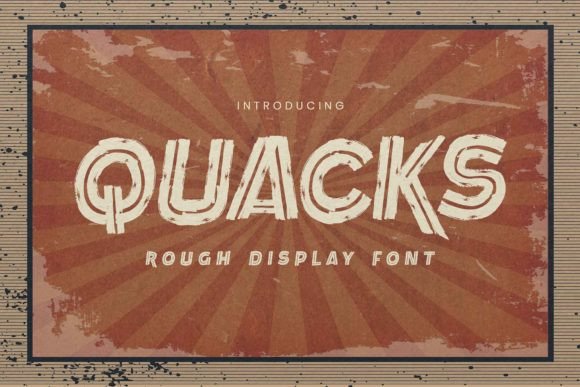
Quacks: A Display Font That Feels Like a Thoughtful Pause
Last Tuesday, I sat down to refresh the cover of a small digital magazine feature on slow living—no tight deadlines, no brand guidelines to follow, just quiet intention. I opened my font library and scrolled past dozens of bold serifs and airy sans serifs, then paused at Quacks. Not because it shouted loudest, but because it seemed to breathe with the same gentle rhythm the article itself was built around: unhurried, expressive, quietly confident.
Quacks is a display font—not meant for paragraphs or captions, but for moments that ask to be felt before they’re read. Its letterforms carry a subtle calligraphic warmth, with soft terminals, generous x-height, and just enough personality to feel handmade without slipping into whimsy. There’s no forced quirkiness here; instead, Quacks balances structure and spontaneity. The uppercase Q has a delicate upward flick, the lowercase a leans in like a friendly nod, and the spacing between letters invites air—not clutter. It doesn’t demand attention; it earns it.
I used Quacks for the feature’s title treatment across three formats: a PDF newsletter header, a printable guide page for readers, and the opening spread of a digital magazine layout. In each case, it anchored the composition without overwhelming it. On screen, its clean outlines rendered crisply even at smaller sizes (I tested 24–36pt for headers), and in print, the ink held its shape beautifully—no feathering, no loss of nuance. For a lifestyle blog redesign I’m helping a friend prototype, we applied Quacks to the main header and chapter openers, then paired it with a warm, readable serif for body text. The contrast worked effortlessly: Quacks set the tone; the serif carried the conversation.
What makes Quacks especially thoughtful for editorial work is how it supports hierarchy without shouting. It’s ideal for titles, section headers, pull quotes, and cover text—places where meaning and mood converge. I wouldn’t use it for long-form reading, footnotes, or navigation menus, and that’s by design. A great display font knows its role: to elevate, not explain. Think of it as the typographic equivalent of a well-placed pause in spoken storytelling—it gives weight to what comes next.
In a recipe ebook I recently designed, Quacks became the voice of each chapter title (“Spring Gatherings,” “Evening Breads,” “First Light Preserves”). Paired with a soft, slightly rounded sans serif for ingredient lists and instructions, it gave the whole project cohesion and character—like the difference between reading a menu and stepping into a kitchen where someone’s already warmed the oven. Similarly, in a coaching workbook, Quacks introduced reflective prompts (“What feels light today?”) with quiet authority, never competing with the space the reader needed to write.
For printable planners and wedding guides—where texture matters as much as clarity—Quacks adds tactile warmth. Its forms hold up beautifully in PDF exports and print-ready CMYK layouts. I tested it across devices: sharp on Retina screens, legible on mid-tier tablets, and stable when exported to grayscale printouts. No surprises. Just consistency.
Pairing Quacks thoughtfully deepens its impact. With serif fonts, choose ones that share its warmth—think Garamond variants or newer humanist serifs like Tiempos Text or Literata. For sans serif companions, avoid overly geometric options; instead, lean toward friendly, open-feeling families like Inter, Sofia Pro, or even a relaxed mono like Input Sans. Avoid pairing it with other display or script fonts—Quacks shines brightest when it’s the only voice singing lead.
It’s easy to overlook how much emotional resonance lives in type choice. A font isn’t just decoration; it’s the first sentence of your relationship with the reader. Quacks doesn’t try to be everything. It’s not a workhorse. It’s not neutral. But in the right context—on a blog header that welcomes rather than announces, on a chapter opener that invites reflection, on a printable guide that feels like a handwritten note from a trusted friend—it becomes part of the message itself.
I’ve since used Quacks for a digital magazine cover, a set of workshop handouts, and even the title treatment for a short audio transcript series—all different formats, all unified by the same calm confidence. Each time, it reminded me that good typography isn’t about standing out. It’s about belonging—belonging to the idea, the audience, the moment.
If you’re choosing a display font for your next editorial project—a recipe collection, a seasonal newsletter, a coaching resource, or a quiet digital zine—consider what tone you want to extend before a single word is read. Quacks doesn’t rush. It settles. And sometimes, that’s exactly what your readers need most.